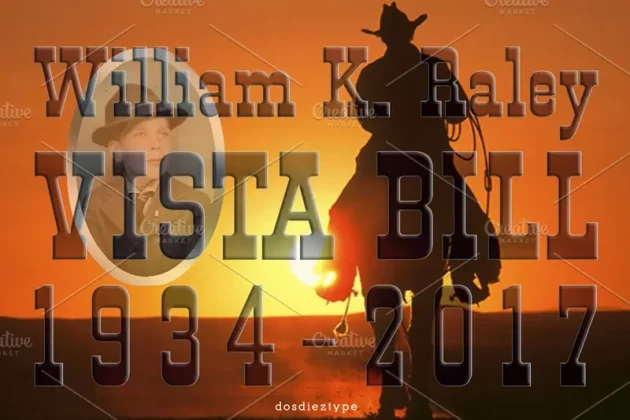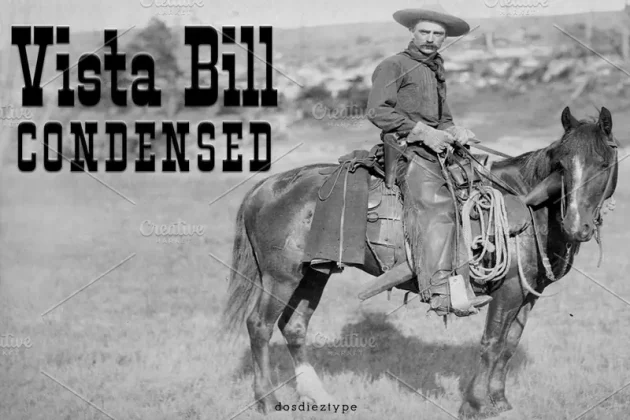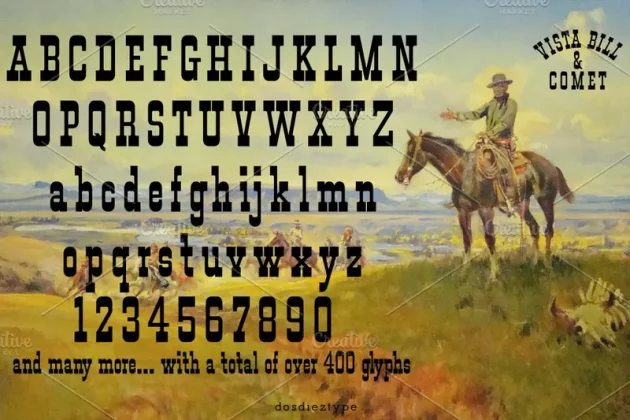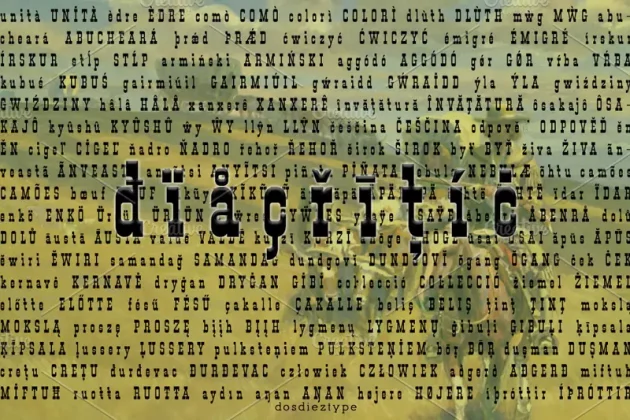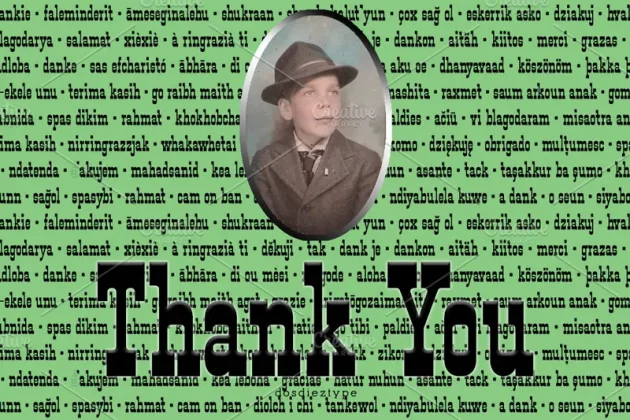
About Vista Bill Condensed Font
Vista Bill Condensed is a western style font that is reminiscent of the fonts popular in the 1950s and 1960s.
Vista Bill Condensed has a total of over 400 characters or glyphs. It has a complete Latin 1 codepage character set meaning all the letters, symbols and punctuations used in Western Europe. Also, it has the complete diacritics or accented letters in the Latin Pro encoding. Vista Bill Condensed is available in both TrueType (TTF) and OpenType (OTF).